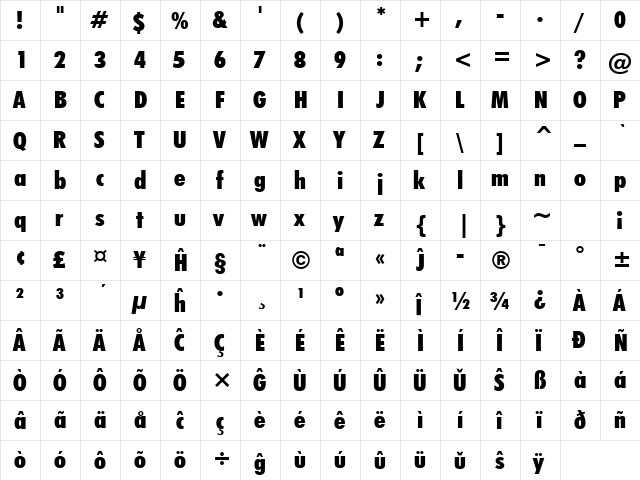
Futura XBlkCn BT Eo Extra Black
Design Context for Futura XBlkCn BT Eo Typeface
Futura XBlkCn BT Eo has a distinctly futuristic character, with geometric precision and clean angles that feel at home in technology, gaming, and sci-fi contexts.
Pro Tip: Try Futura XBlkCn BT Eo with generous letter-spacing in UI labels and navigation — the geometric forms benefit from room to breathe.